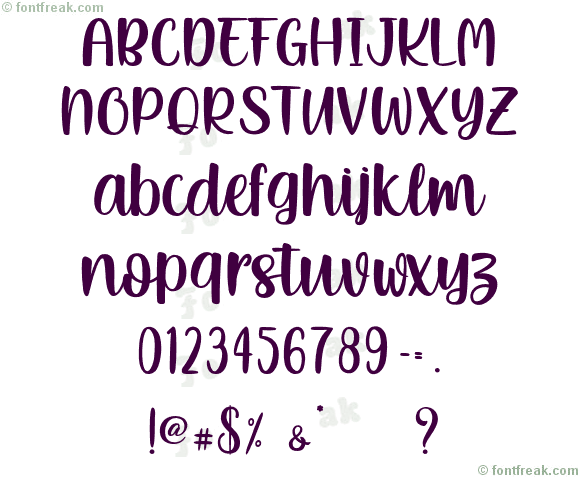
LusyJazzPersonalUse
About LusyJazzPersonalUse
LusyJazzPersonalUse is a captivating script font designed by Suthi Srisopha, classified under the handwritten category. Its charming and organic flow gives it a warm, inviting personality that feels both personal and expressive. The strokes vary in weight, creating a delightful contrast that enhances its artistic flair. The letters are elegantly connected, maintaining a consistent spacing that allows for easy readability while preserving a handwritten feel. Decorative elements such as playful swirls and curves add a unique touch, making this font a perfect choice for projects that require a touch of creativity and warmth.
This font shines in a variety of use cases. It is ideal for crafting wedding invitations, where its romantic style can convey heartfelt messages. Additionally, LusyJazzPersonalUse is well-suited for creating eye-catching movie posters, helping to evoke emotions and attract attention. Restaurant menus can also benefit from this font, as it adds a friendly and approachable vibe that invites diners to explore the offerings. Content creators will find this font perfect for social media graphics, as it stands out in feeds and captures audience interest.
The target audience for LusyJazzPersonalUse includes graphic designers, small business owners, and content creators looking to add a personal touch to their work. Its versatility and charm make it a favored choice for projects that aim to resonate with an audience on a deeper level.
In summary, LusyJazzPersonalUse font free download offers a distinctive handwriting style that stands out in a crowded market. Its unique visual characteristics and broad range of applications make it an essential tool for anyone seeking to infuse their designs with personality and warmth. Whether for personal projects or professional endeavors, this font promises to elevate any creative work.